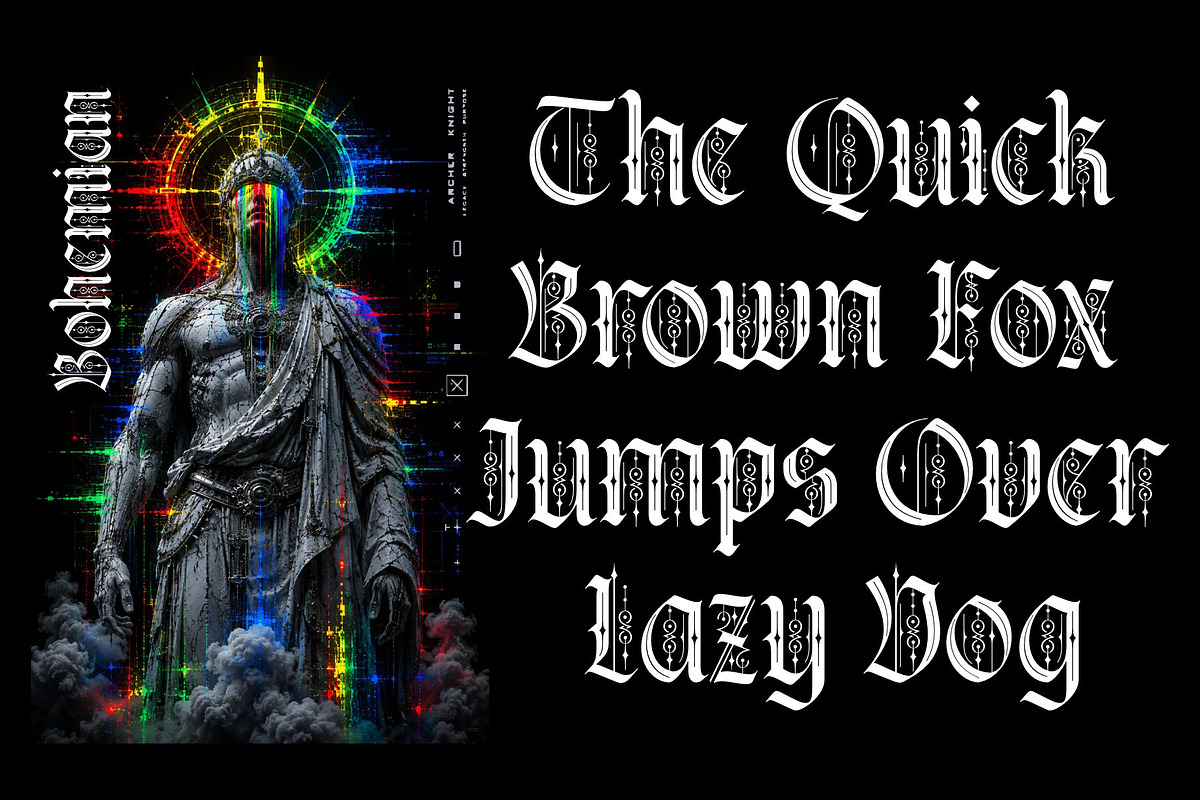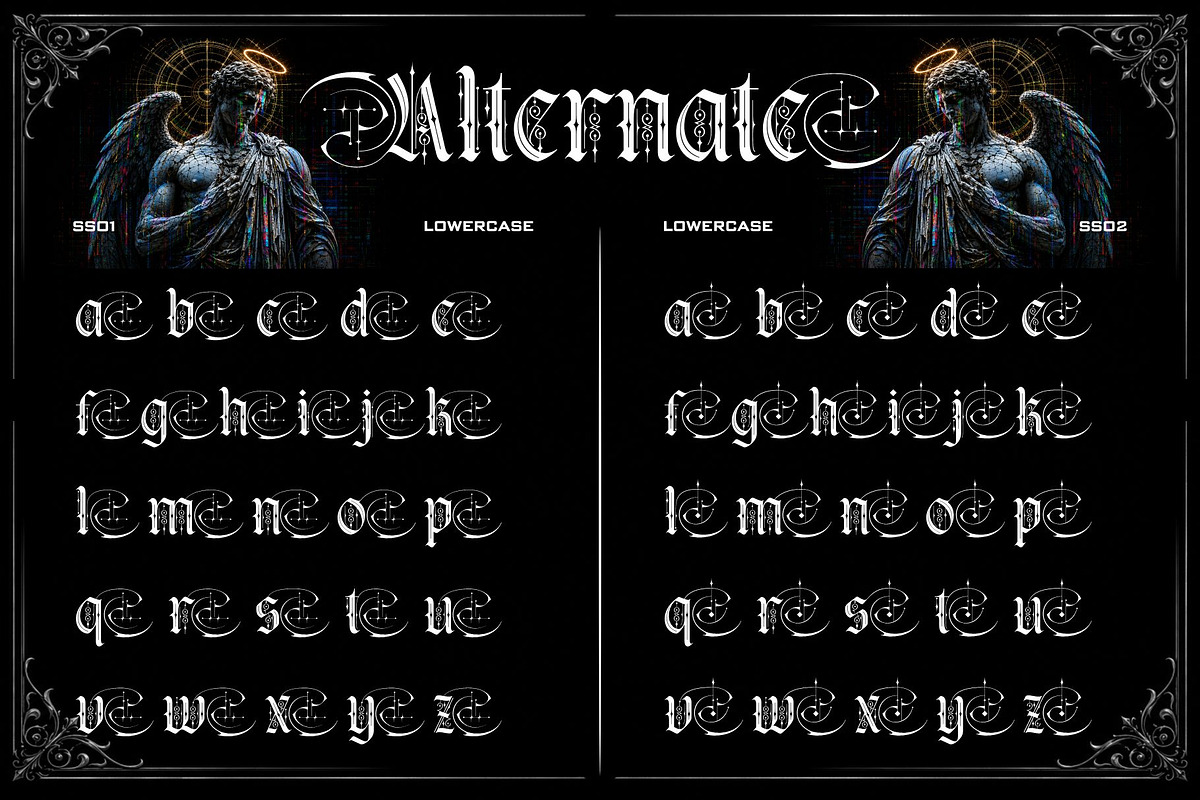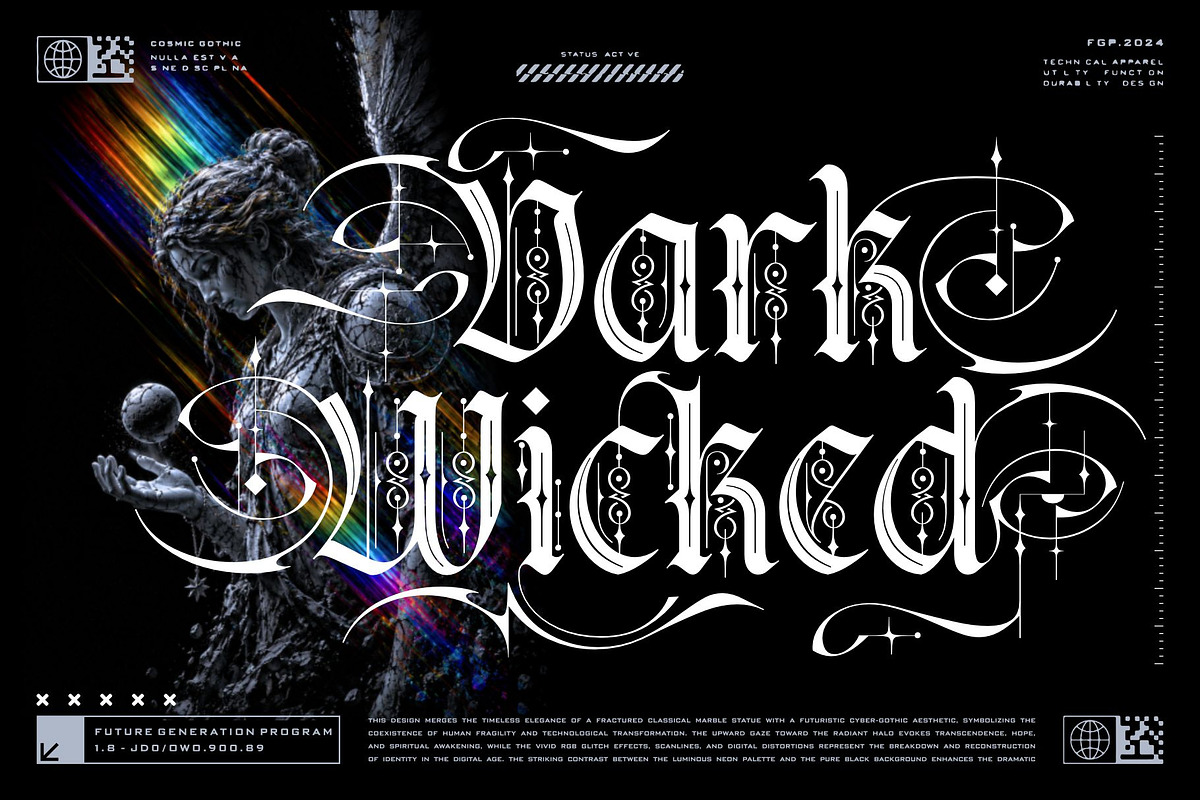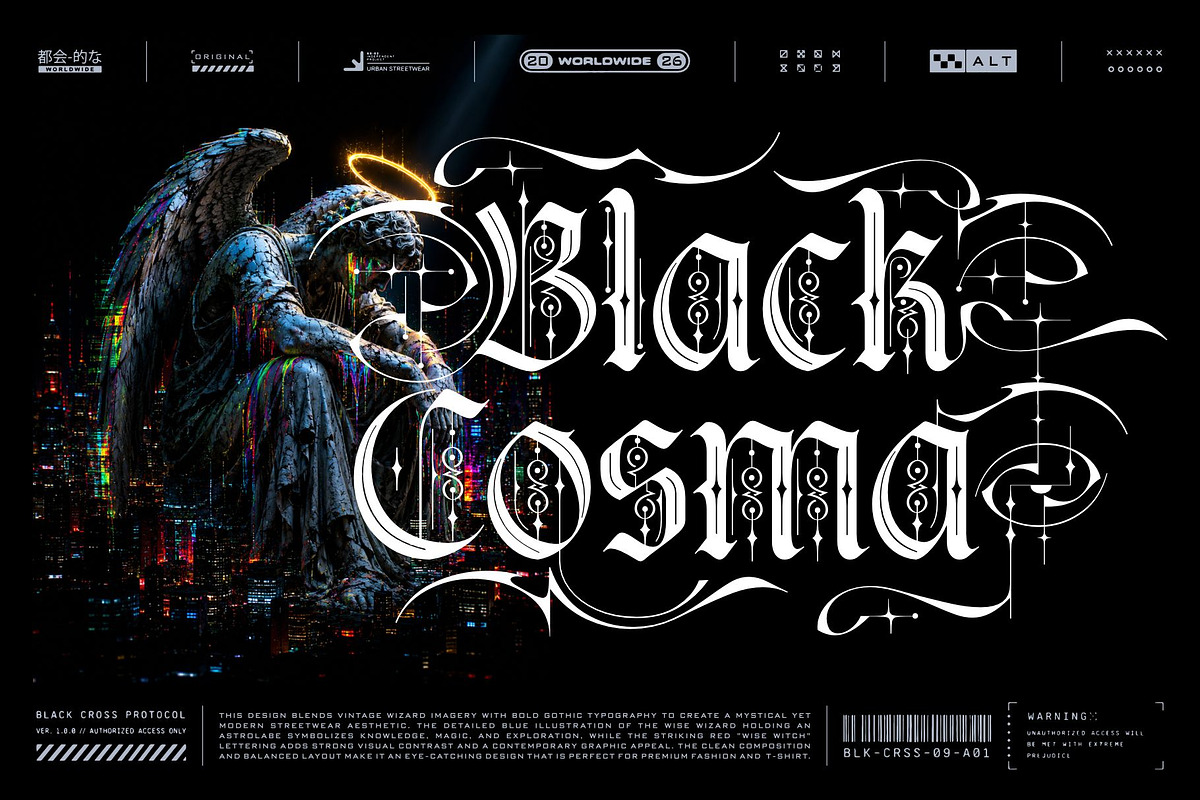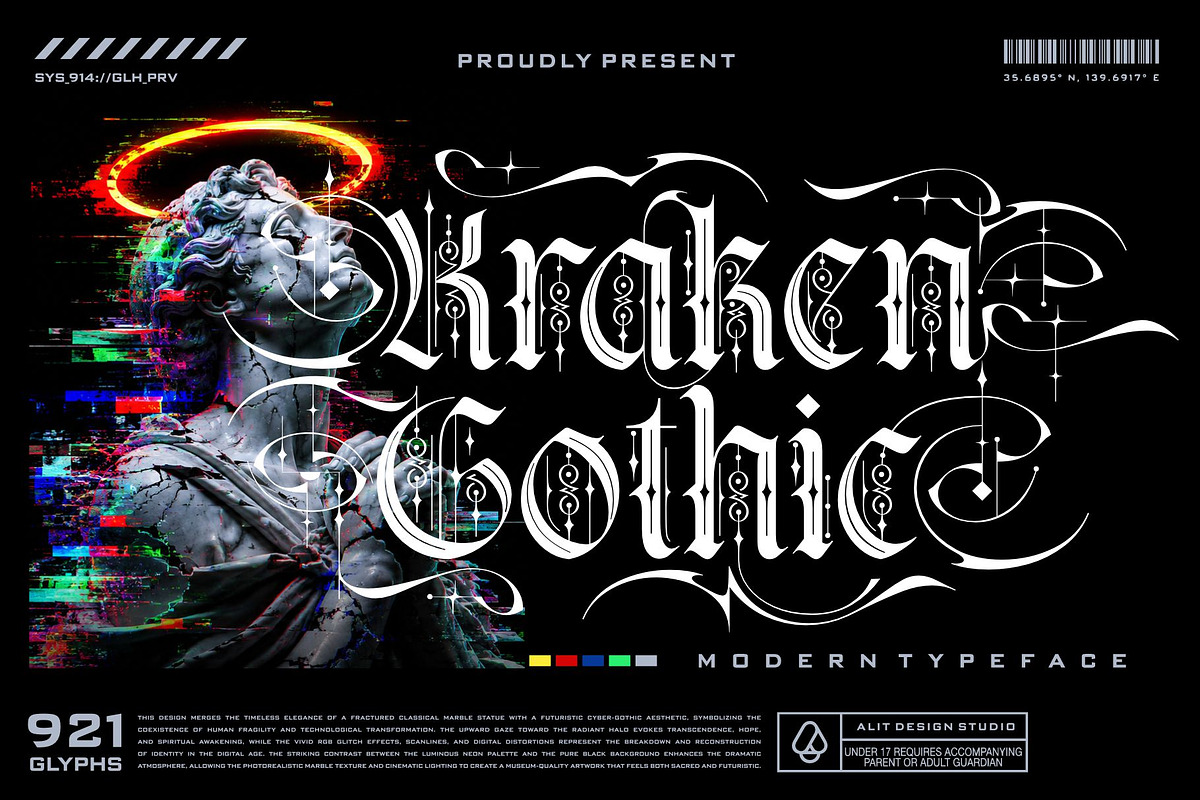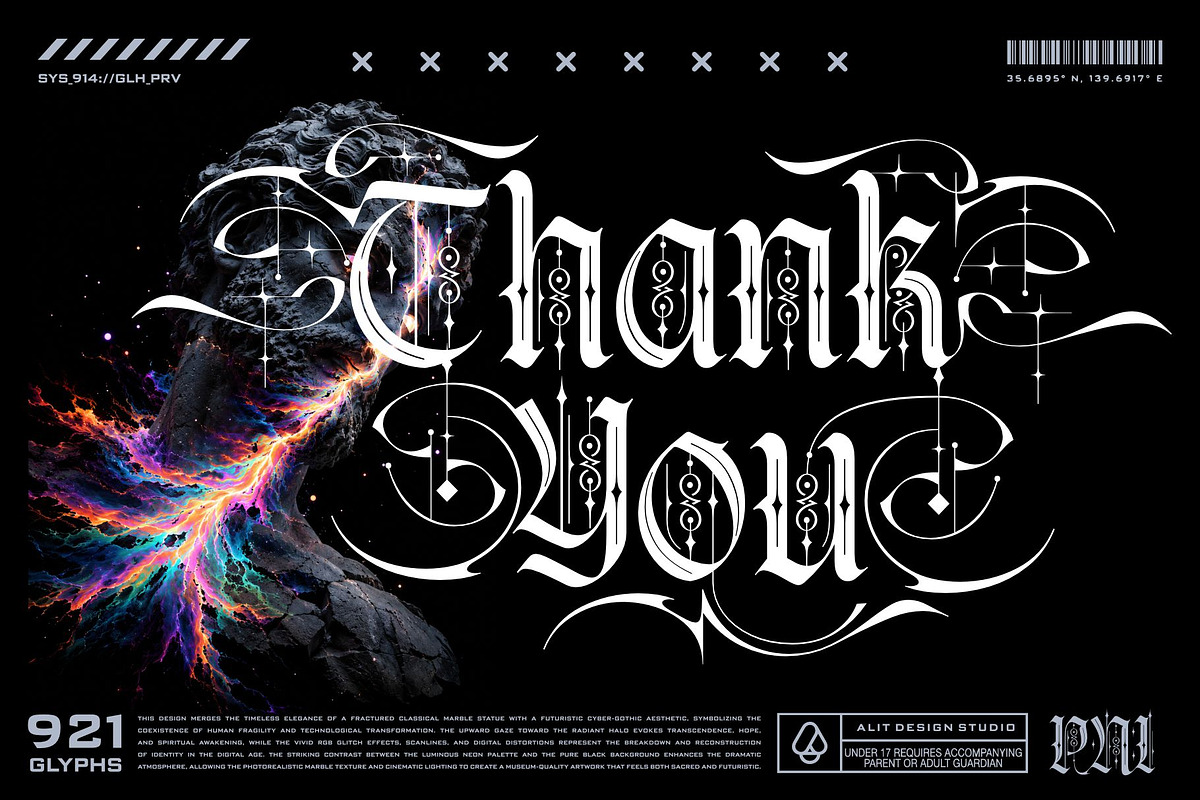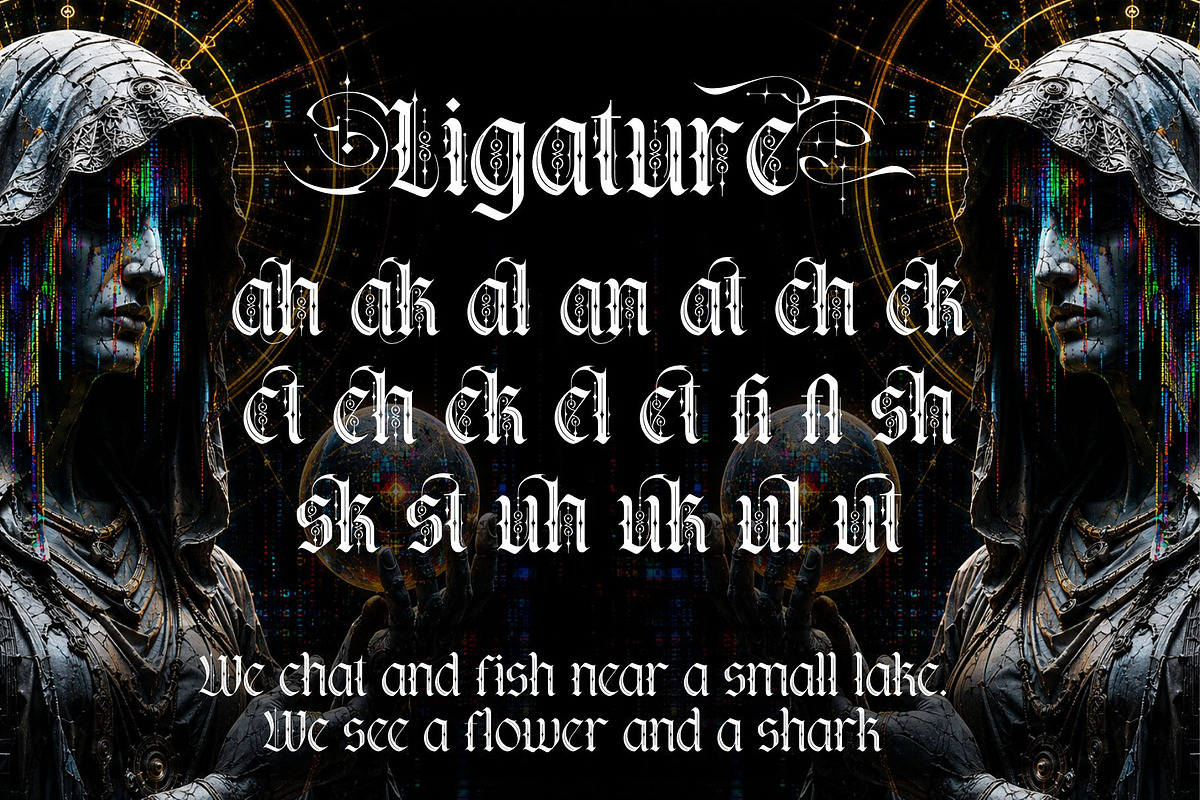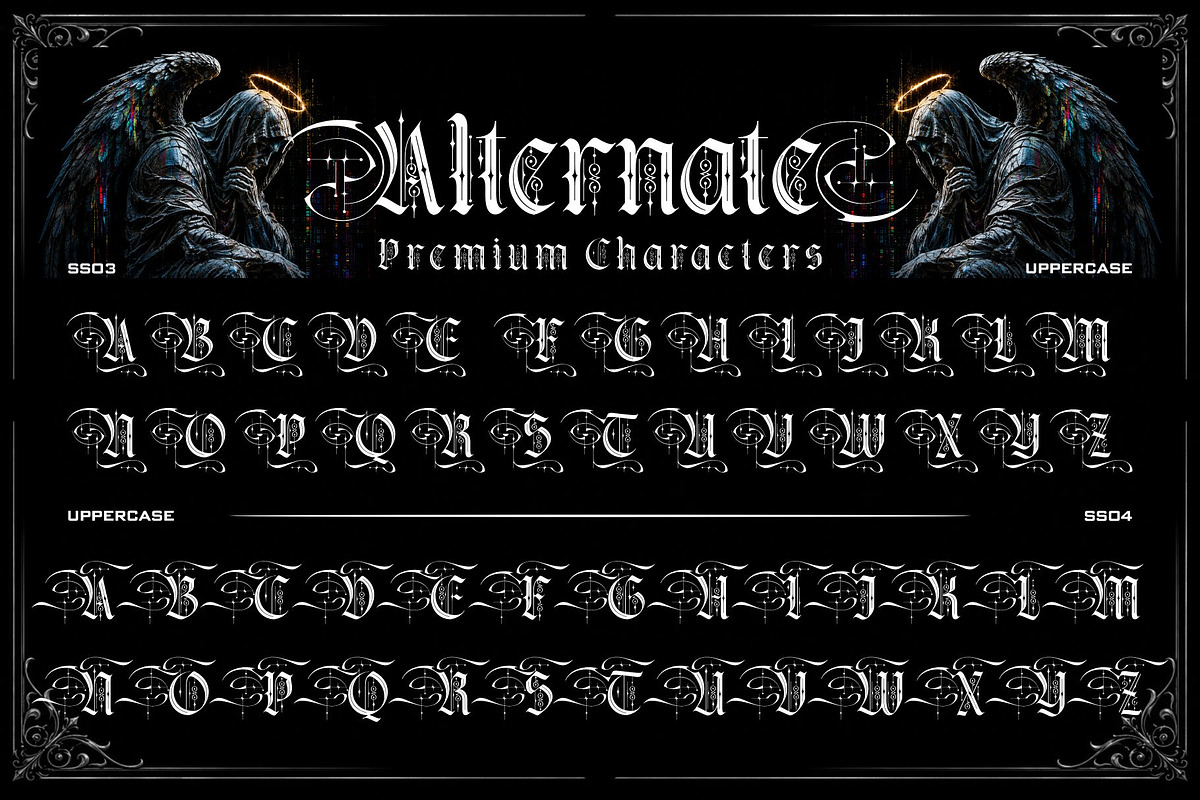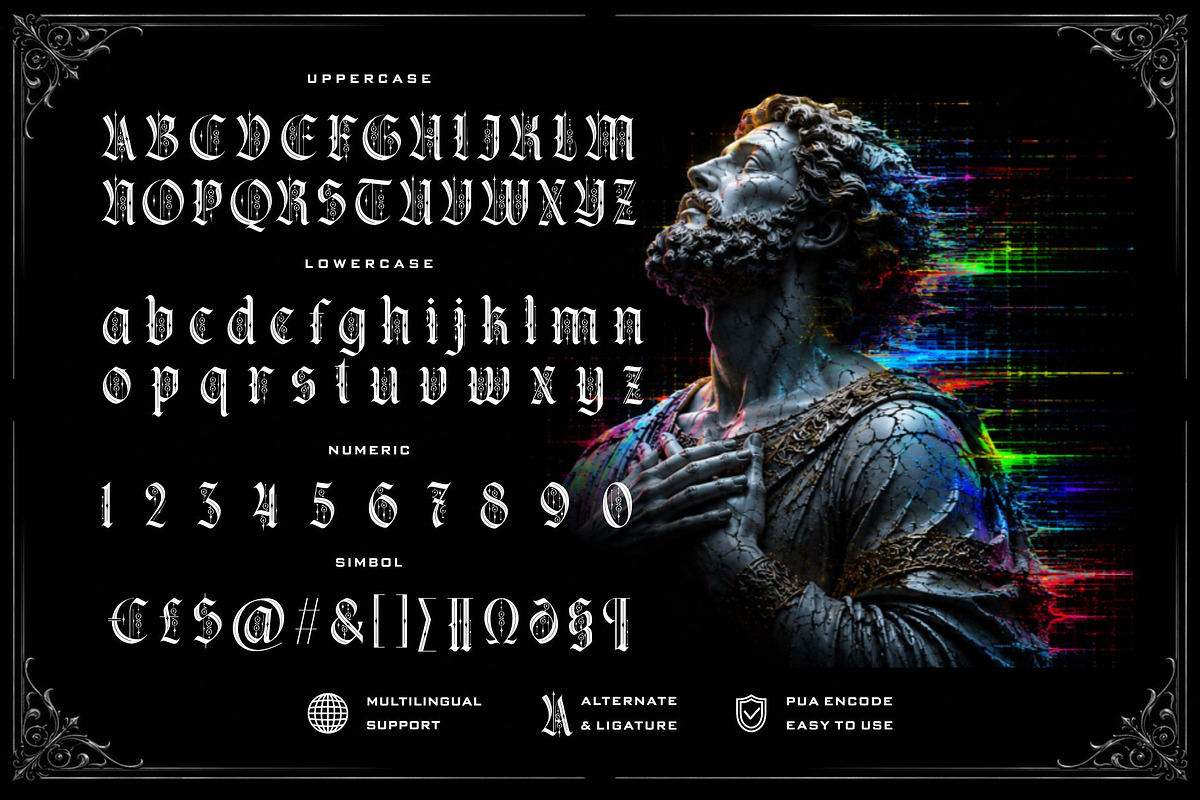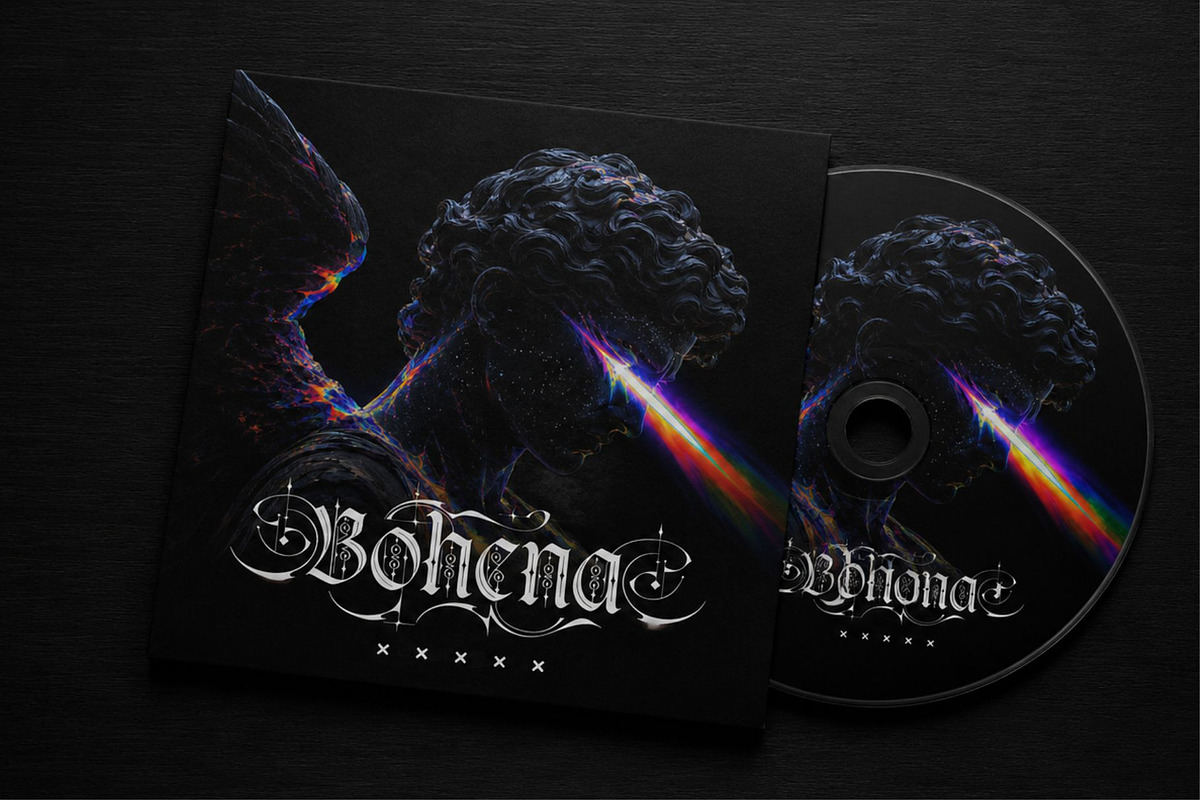
Kraken Gothic Typeface
Embrace the collision of classical elegance and futuristic rebellion with Kraken Gothic, a modern cyber-gothic typeface designed to make a striking statement. Inspired by timeless blackletter typography and infused with a dark, edgy aesthetic, this font bridges the gap between vintage artistry and modern streetwear.
Kraken Gothic is meticulously crafted for designers who want to push boundaries. Featuring a massive collection of 921 glyphs, it offers unparalleled customization. Whether you are designing high-impact urban streetwear, edgy music album covers, futuristic gaming logos, or striking poster art, Kraken Gothic provides the ultimate toolkit for dark, dramatic, and conceptual designs.
Extensive Character Set: Includes standard uppercase letters, lowercase letters, numbers, and symbols.
Massive Glyph Count: Packed with 921 individual glyphs to give you complete creative freedom.
Stylistic Alternates: Features 10 distinct stylistic sets (SS01 - SS10) to mix and match intricate letterforms and swashes.
Custom Ligatures: Beautifully crafted ligatures for seamless and unique typographic flows.
Multilingual Support: Broad language support for global projects.
PUA Encoded: Easy access to all alternate characters and swashes without requiring specialized design software.
Bonus Dingbats: Includes exclusive thematic dingbats to perfectly complement your gothic designs.
Urban Streetwear & Apparel Design
Band Merchandise & Album Art
Tattoo Typography
Esports & Gaming Branding
Dark, Cyberpunk, & Futuristic Visuals
Elevate your design game and bring your boldest visions to life with Kraken Gothic.